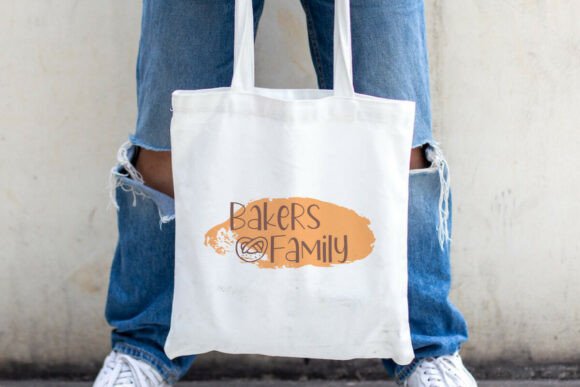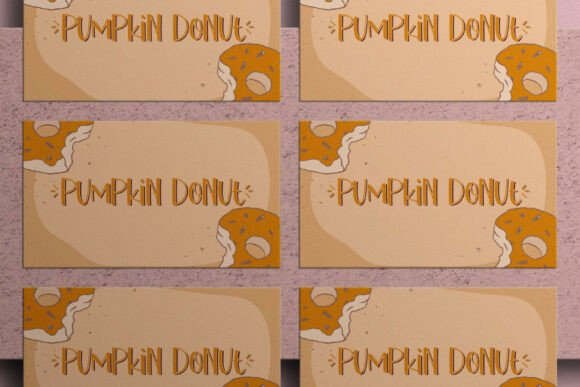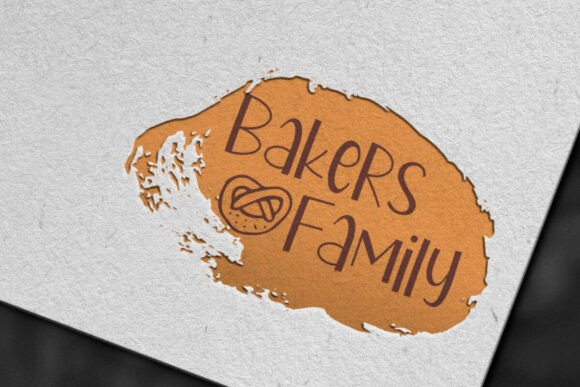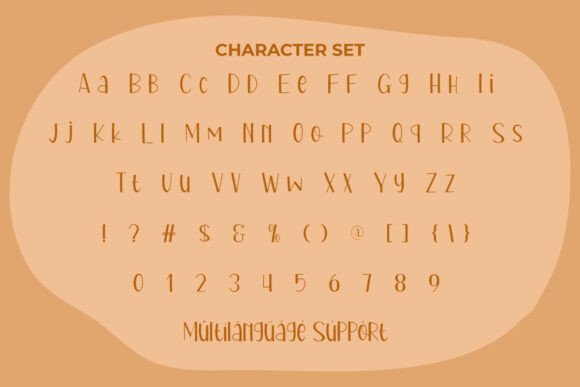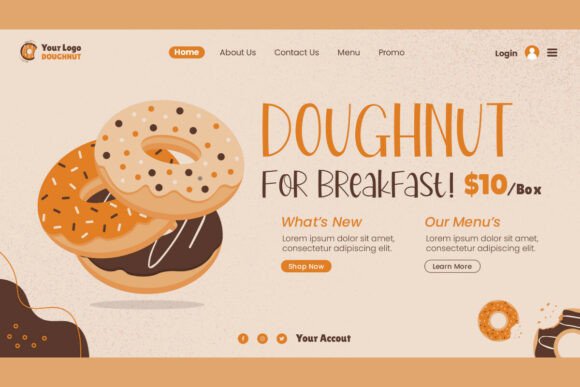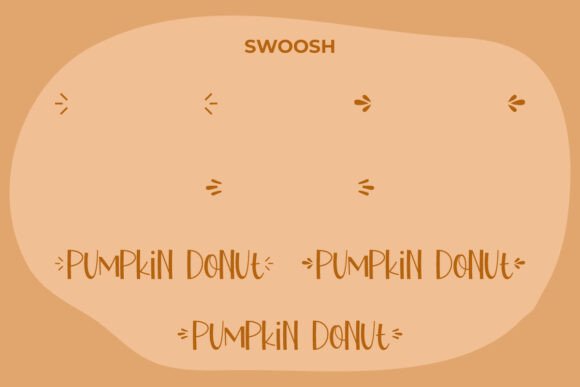
Introduction to Pumpkin Donut Font
As a designer, there’s nothing quite like the feeling of stumbling upon the perfect font to elevate your creative project. For me, that moment came when I discovered the adorable Pumpkin Donut Font – a playful comic display font that instantly transports me to a world of autumn treats and cozy vibes.
With its slim, tall capital letters and swoosh character, this font is a game-changer for designers looking to add a touch of whimsy to their designs. Whether you’re working on a brochure, catalogue, or menu, the clean and modern letters of Pumpkin Donut Font make it a valuable addition to any design resource.
Key Features of Pumpkin Donut Font
- High-quality, hand-drawn design with a unique and playful style, perfect for creative projects.
- Comes with a transparent background, allowing for seamless integration with any design resource.
- Features a large character set, including uppercase and lowercase letters, numbers, and special characters.
- Pumpkin Donut Font is ideal for use in various creative projects, including branding, packaging, and editorial design.
Honest Review: Pumpkin Donut Font
I recently stumbled upon the Pumpkin Donut Font, a free download that caught my eye. As a designer, I’m always on the lookout for high-quality design resources to elevate my creative projects. In this review, I’ll share my honest thoughts on this font.
- The font has a playful, whimsical feel to it, perfect for fall-themed projects or branding.
- The transparent background option makes it easy to layer and combine with other design elements.
- The font is highly customizable, allowing for adjustments to size, color, and style.
- The font may not be suitable for formal or professional projects due to its playful nature.
- The number of characters and glyphs is limited compared to other fonts.
Overall, the Pumpkin Donut Font is a fun and versatile design resource that can add a unique touch to your creative projects. While it has some limitations, it’s a great option for those looking for a high-quality, free download. I’d definitely recommend it for fall-themed projects or branding.
Pumpkin Donut Font
Tips for Getting the Most Out of Pumpkin Donut Font
To get the most out of the Pumpkin Donut Font, consider the following tips:
- Use the font with a transparent background to create a fun and playful effect.
- Combine the font with other design elements, such as icons and graphics, to create a unique and engaging visual style.
- Experiment with different font sizes and colors to find the perfect look for your design.
The Pumpkin Donut Font is perfect for a variety of creative projects, including:
- Food and drink branding
- Party and event invitations
- Children’s products and packaging
- Seasonal and holiday-themed designs